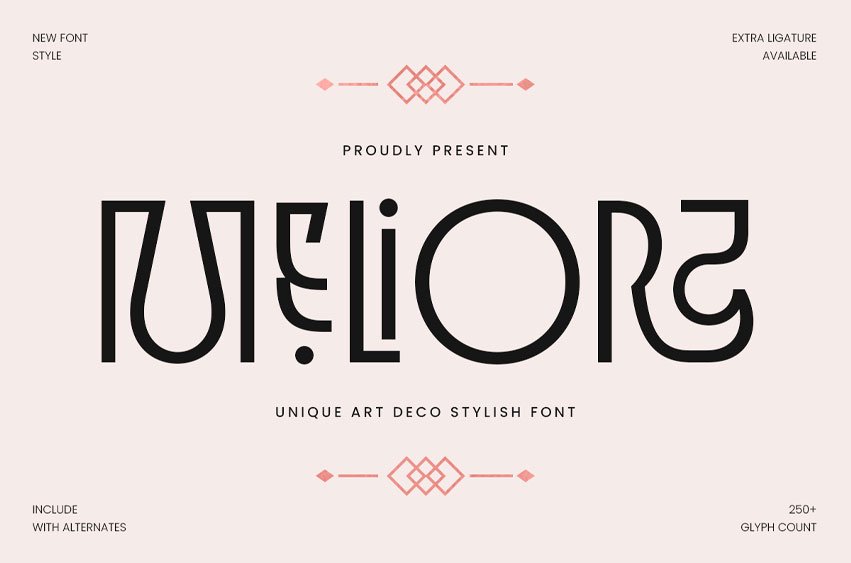
Meliora Font is a unique art deco-style font that captures the essence of timeless elegance and modern refinement. Inspired by the geometric forms and ornamental beauty of the Art Deco era, this typeface blends luxury with contemporary design—making it perfect for high-end branding, editorials, and creative campaigns.
With its sleek lines, symmetrical balance, and sophisticated character shapes, MELIORA adds an instant sense of glamour to logos, invitations, posters, and packaging. It’s ideal for fashion brands, jewelry design, beauty products, and event promotions that demand a touch of exclusivity and style.
Each letter of MELIORA is crafted with precision, allowing it to stand out in both digital and print formats. Its unique combination of vintage charm and modern elegance makes it a versatile choice for designers seeking a decorative yet professional display font.
MELIORA – Unique Art Deco Stylish Font Features
- Elegant Art Deco–inspired typeface with stylish details
- Perfect for logos, invitations, posters, and luxury branding
- Combines vintage sophistication with modern minimalism
- Great for fashion, jewelry, beauty, and editorial design
- Uppercase, lowercase, numerals, and punctuation included
- OpenType features for advanced typographic creativity
Bring timeless elegance to your work with MELIORA – the ultimate art deco stylish font for luxury branding, fashion, and creative design.